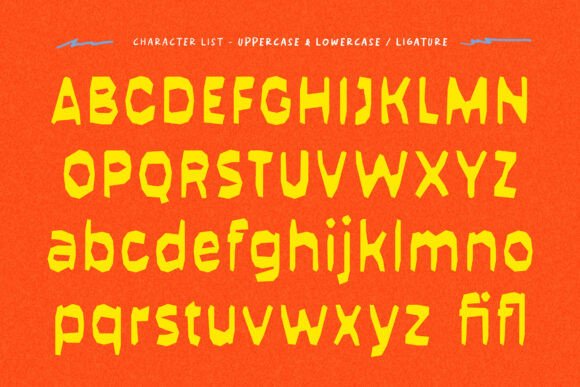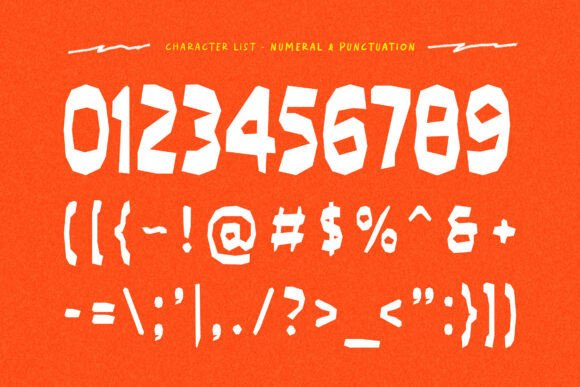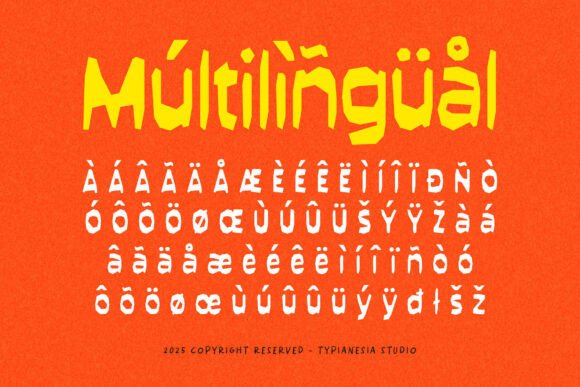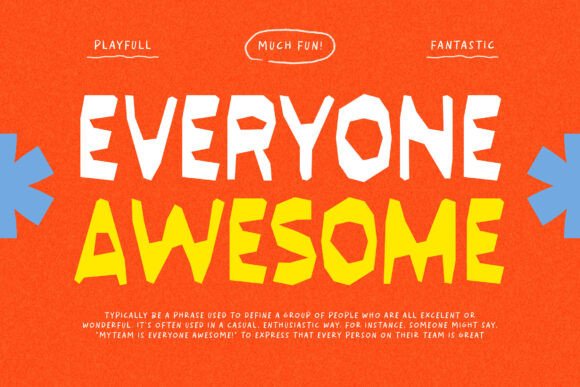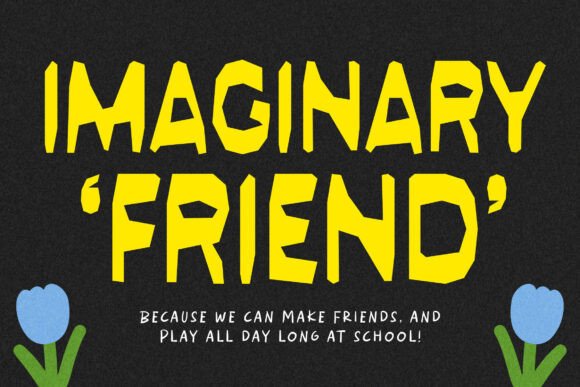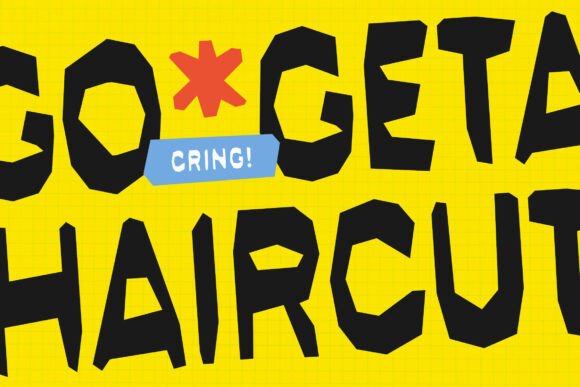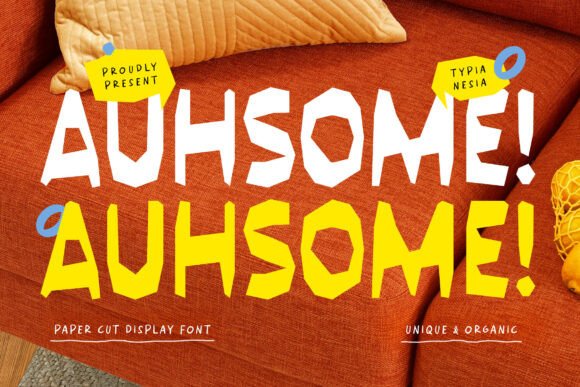
The Quest for the Perfect Font: How Auhsome! Became My Go-To
I still remember the frustration of working on a project, hours spent crafting the perfect design, only to realize that the font I was using just wasn’t cutting it. The client wanted something fun, playful, and eye-catching, but the fonts I had at my disposal just didn’t have that wow factor. That’s when I stumbled upon Auhsome!, a unique and organic paper cut display font that completely transformed my design game.
First Impressions: A Honest Review of Auhsome!
So, what makes Auhsome! so special? Here’s my honest review:
• ✨ Unique and quirky design: Auhsome! has an unmistakable charm that’s hard to find in other fonts. Its irregular, cut-paper shape gives it a handcrafted and creative touch that’s perfect for headlines, branding, and promotional materials.
• ✅ Multilingual support: This font supports a wide range of languages, making it a great choice for global brands or designers who work with international clients.
• ✅ Comprehensive character set: Auhsome! includes extra characters, numbers, and punctuation, giving you plenty of flexibility when it comes to designing your project.
Of course, no font is perfect, and Auhsome! does have a few quirks:
• ⚠️ Legibility at small sizes: Auhsome! is designed for display use, and its unique shape can make it harder to read at smaller sizes. Be sure to use it at larger sizes or for short text snippets.
• 🤔 Pairing with other fonts: Auhsome!’s bold personality can be overwhelming when paired with other fonts. Experiment with different combinations to find the perfect balance.
The Story Behind Auhsome!
Auhsome! was designed by a creative team that’s passionate about bringing unique and playful fonts to the design community. The team was inspired by the imperfections and charm of handcrafted paper cut designs and wanted to create a font that would bring a touch of whimsy to any project. With Auhsome!, you get a font that’s not only visually striking but also rich in personality.
Q: What type of projects is Auhsome! best suited for?
A: Auhsome! is perfect for headlines, branding, product packaging, beverage products, toys, children’s brands, and other promotional materials that require a strong, cheerful, fresh, and distinctive message.
Q: Does Auhsome! support multilingual use?
A: Yes, Auhsome! supports a wide range of languages, making it a great choice for global brands or designers who work with international clients.
Ready to make your design stand out? With Auhsome!, you can bring a playful, organic feel to your next project and create visuals that are truly unique and memorable.